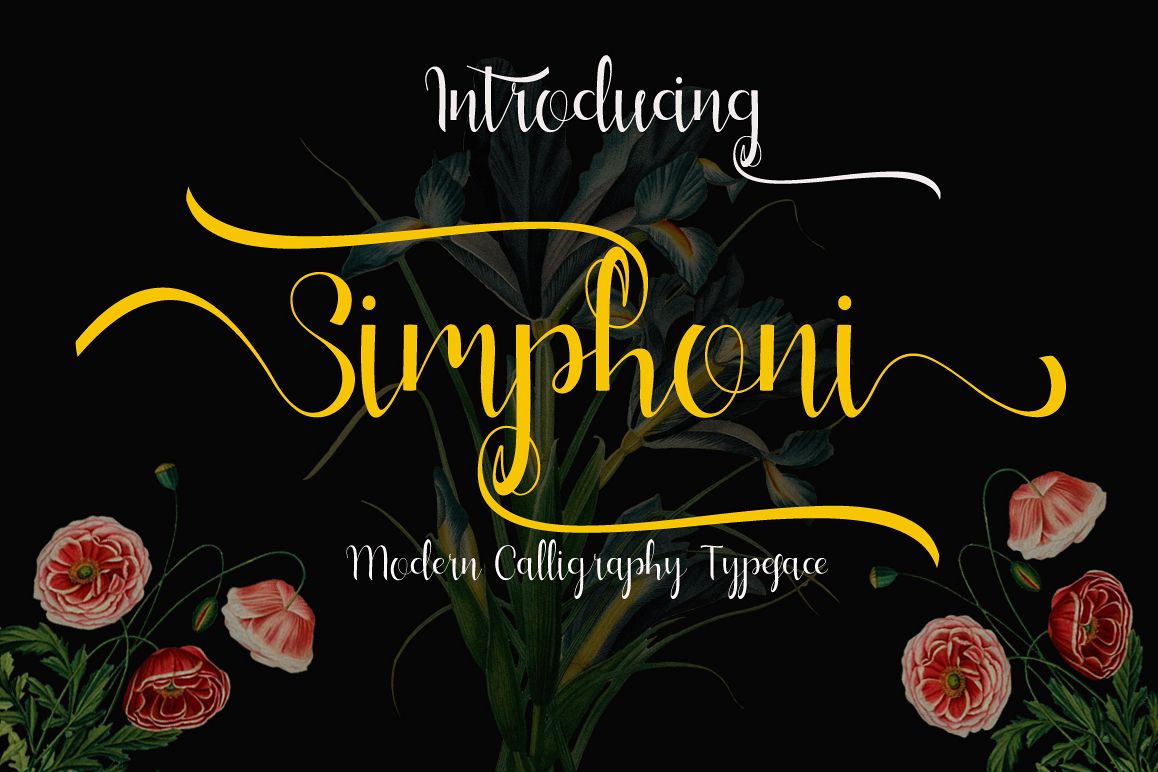
Simphoni
INTRODUCING SIMPHONI
Simphoni Modern Calligraphy. This font was designed by handwriting, and it has a modern and unique forms of calligraphy, the writing style is very natural. Simphoni has a very unique style of calligraphy, it is very suitable for use in the work of modern design.
The Features of this fonts is:
* Standart ligatures
* Stylistic Alternates
* Swash
Can be used for various purposes.such as headings, logos, wedding invitation, t-shirt, letterhead, lable, news, posters, badges etc. To enable the OpenType Stylistic alternates, you need a program that supports OpenType features such as Adobe Illustrator CS, Adobe Indesign & CorelDraw X6-X7.a font that made the hand by having the character up and down like a dancer.
Simphoni has a very unique style of calligraphy, it is very suitable for use in the work of modern design